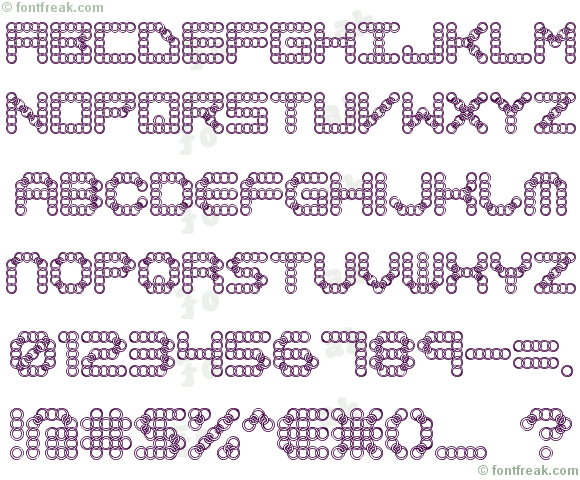
LYNX BRK
The Lynx font by Ænigma Fonts is a unique decorative typeface that brings a playful yet sophisticated flair to any design project. This shareware font features an intricate design characterized by its chain-like, interconnected letters, giving it a distinct visual appeal. The stroke weight is consistent, offering a balanced look, while the spacing between the characters is intentionally designed to enhance readability without sacrificing style. The decorative elements present in Lynx create a sense of movement and creativity, making it an eye-catching choice for various applications.
Lynx is particularly well-suited for wedding invitations, where its artistic flair can add a touch of elegance. It also shines in branding materials for artisanal businesses, such as craft shops or boutique cafes, providing a charming personality that resonates with customers. Additionally, Lynx can be effectively used in event posters, especially for creative workshops or art exhibitions, where it can draw attention and convey a sense of community. Content creators looking to enhance their social media graphics or blog headers will find this font invaluable for making their text stand out.
This font appeals to graphic designers, small business owners, and content creators who seek a distinctive typeface that elevates their work. Its unique design allows for versatility across various mediums, providing ample opportunities for creative expression.
What sets Lynx apart is its ability to combine whimsy with elegance, making it a standout choice for those who want to make a memorable impression. Whether you are designing for print or digital platforms, consider opting for the Lynx font free download to explore its potential in your next project.